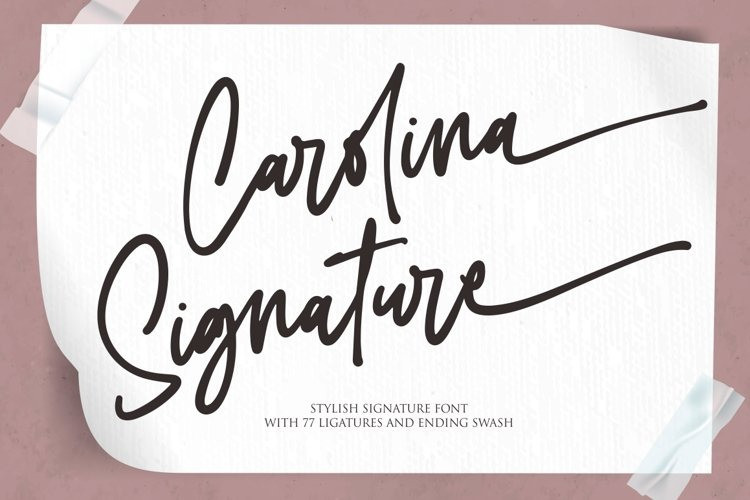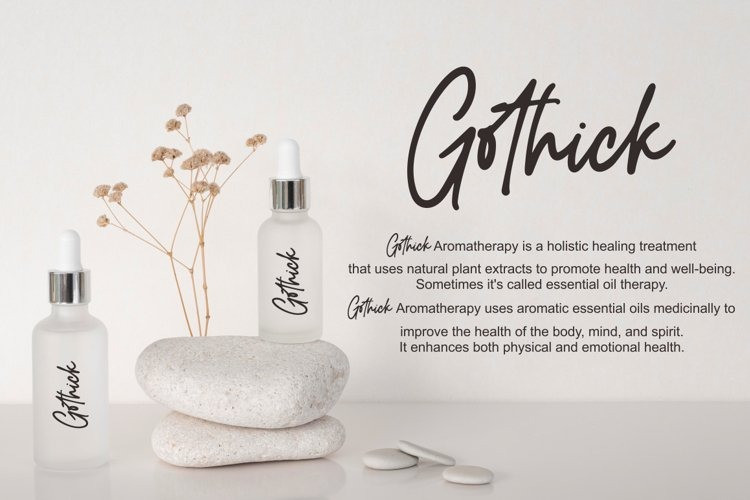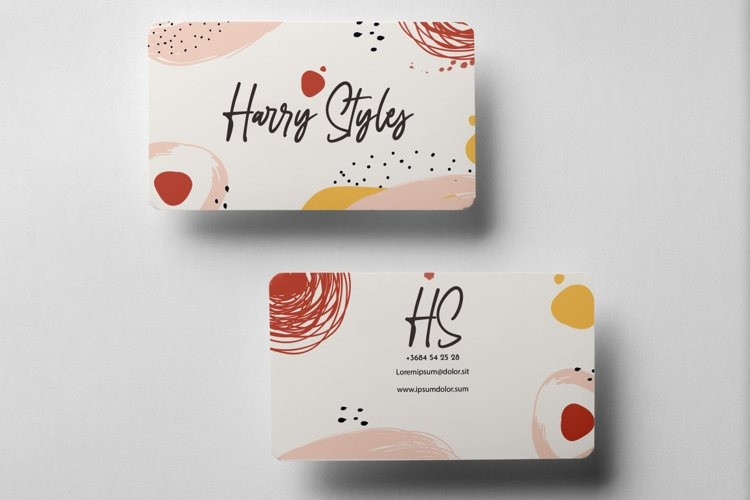
Carolina Signature Font
Carolina Signature a stylish signature font is a font with 77 ligatures and ending swash. It features signature characters that will take your projects to the next level!
This font is PUA code which means you can easily access all the glyphs and swashes that are full of signature! It also features many special features including glyphs and alternate ligatures. font designs that are made for various vector designs, printing such as digital wedding blogs, online shops, social media, while printing can be used in the field of product clothing, accessories, bags, pins, logos, business cards, watermarks and many others …
so it can make your product look cute and attractive, and also Multilingual support!!!